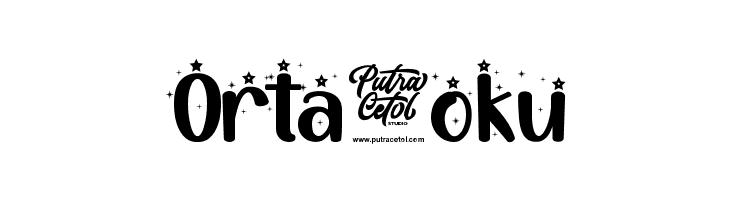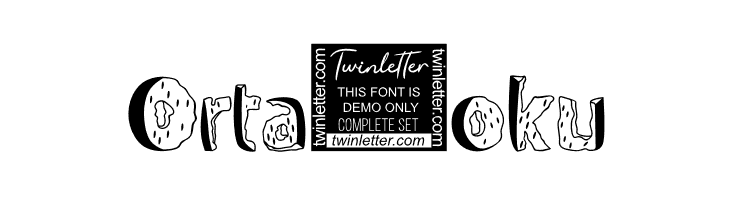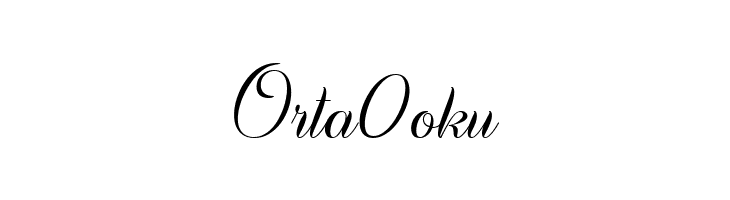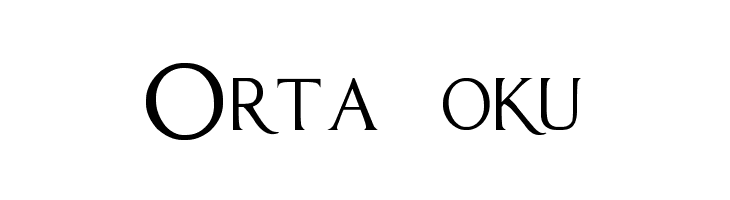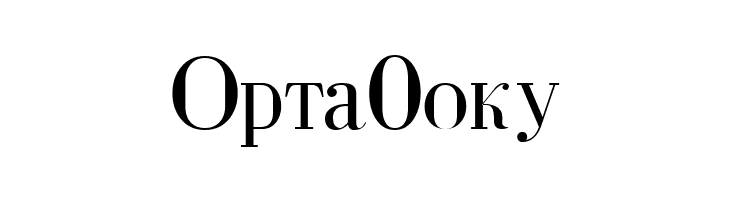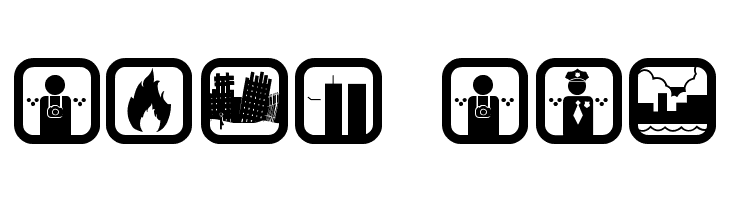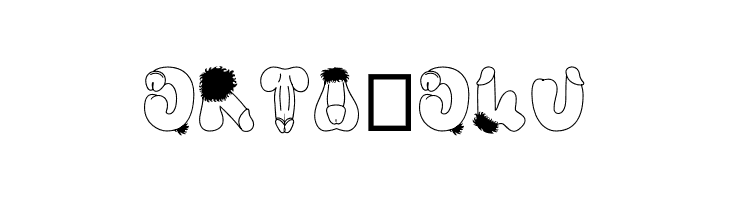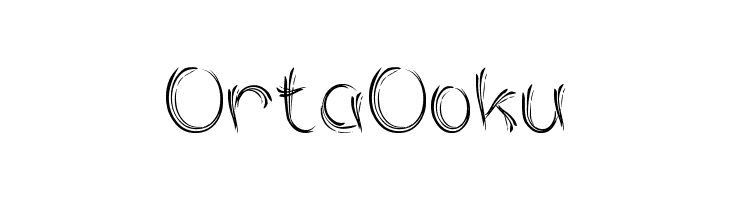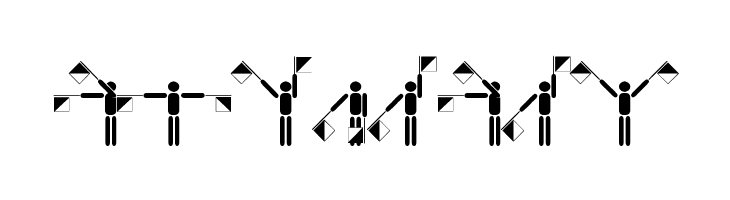
A playful, star-adorned font with bold, rounded characters.
An elegant script font with flowing, interconnected letters and decorative flourishes.
A classic serif font with elegant, sharp serifs and subtle medieval influences.
A playful, hand-drawn font with irregular edges and textured strokes.
A semaphore-inspired font using flag positions to represent characters.
A bold, humorous font with exaggerated anatomical shapes and playful design.
A pictogram font with peace and remembrance-themed illustrations.
A bold pictogram icon font with emergency and urban disaster themes.
An artistic, hand-drawn font with swirling, dynamic strokes.